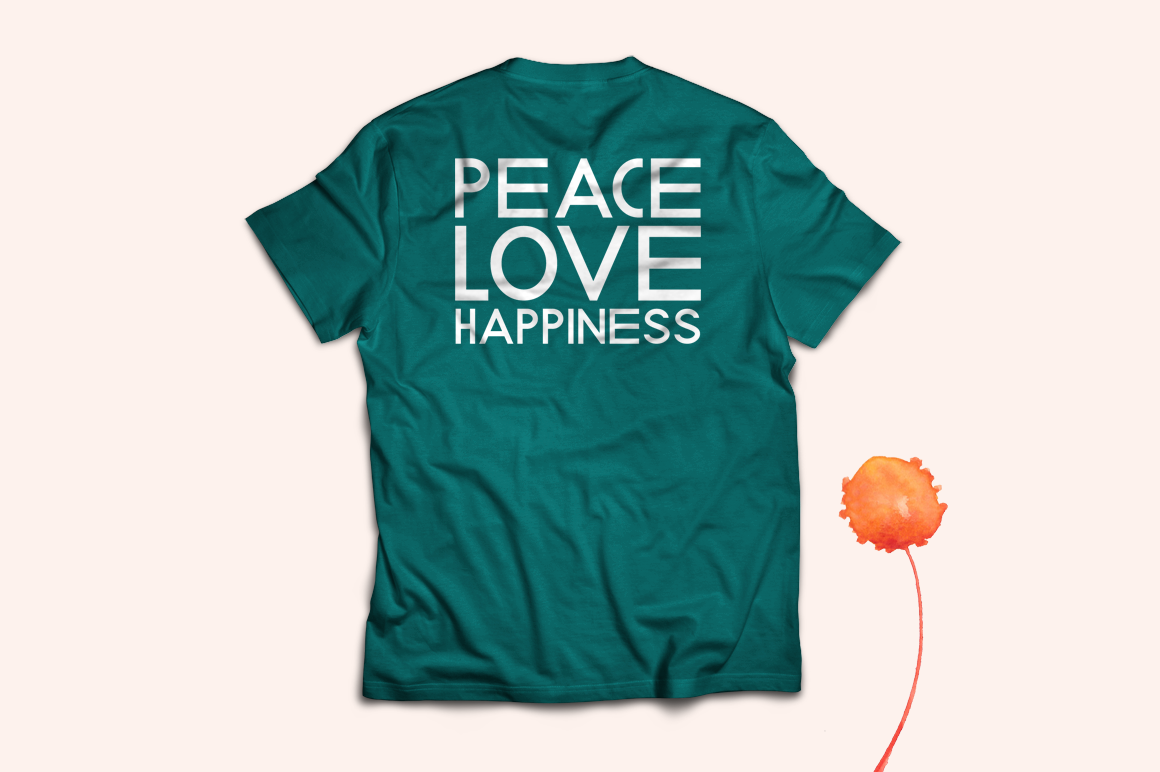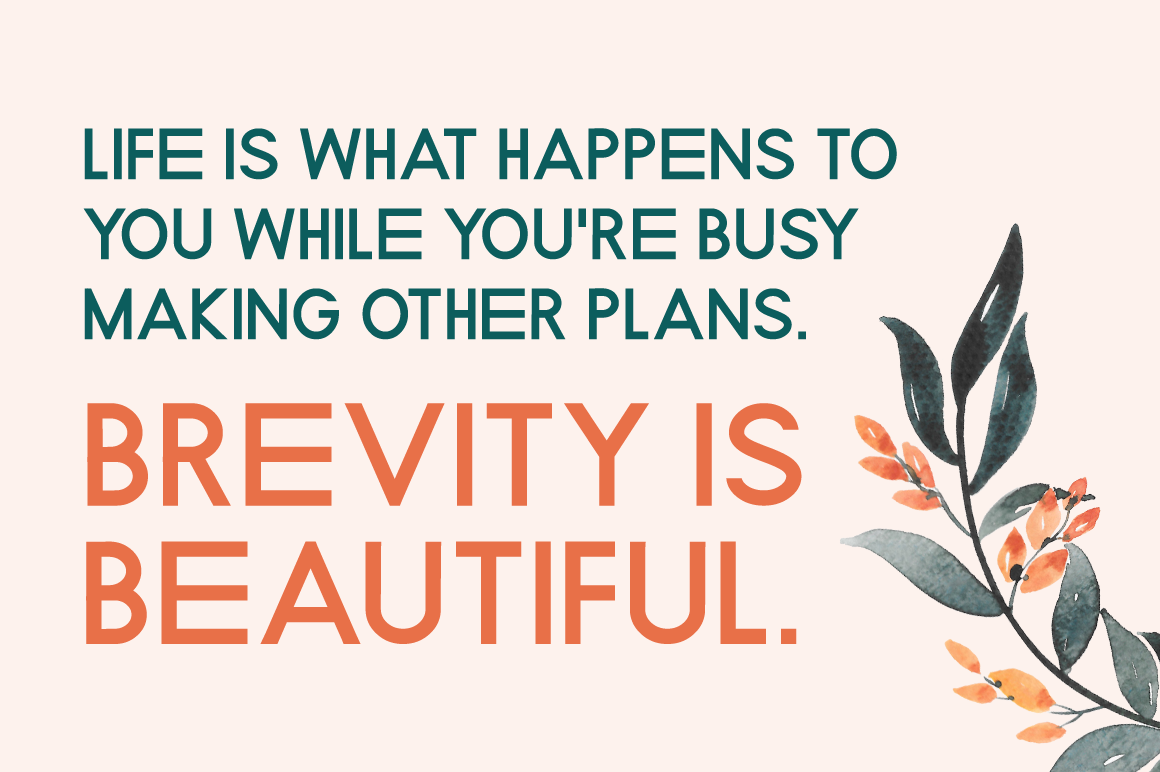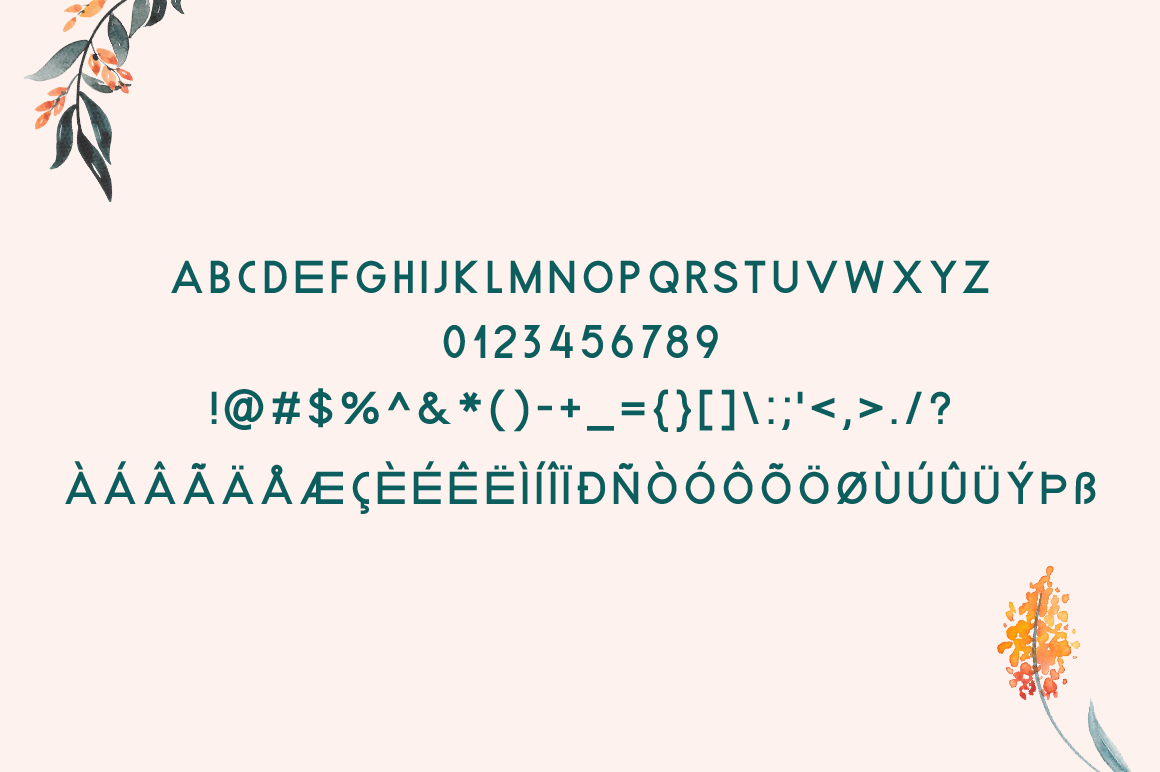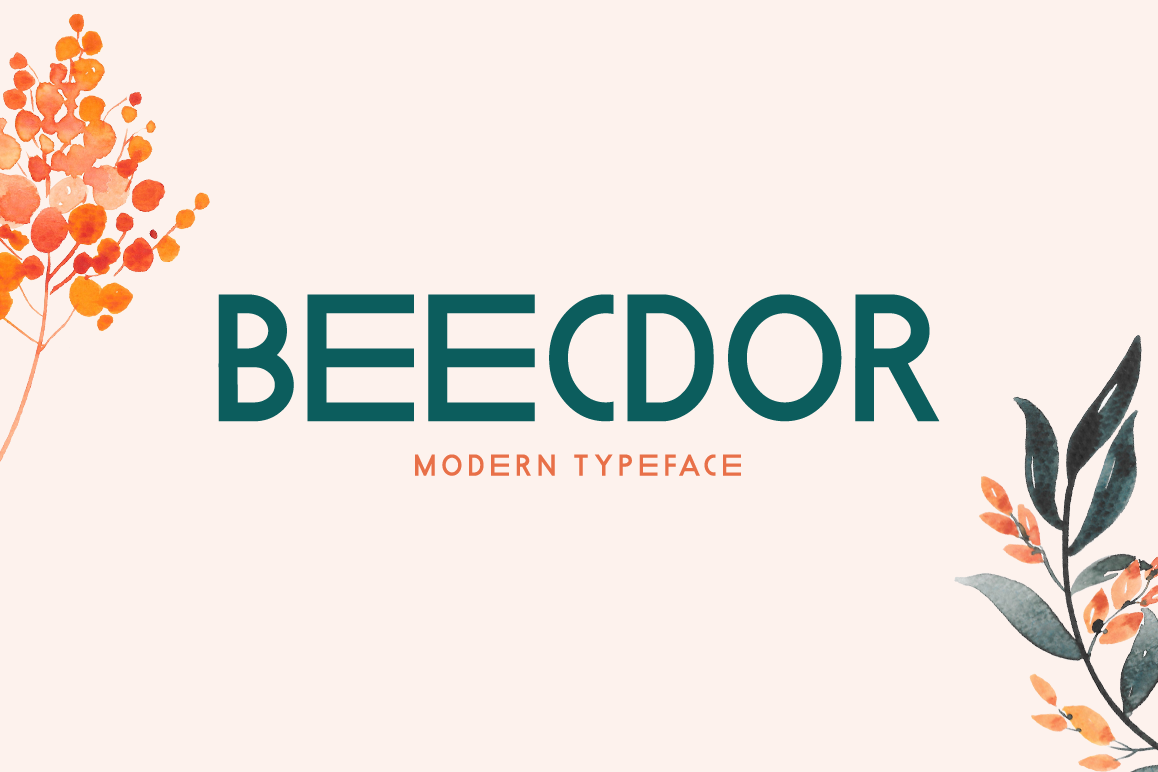
Beecdor Regular Font
ntroducing Beecdor!
Beecdor is a brand new modern display font. Beecdor is perfectly suited for stationery, logos, t-shirt, paper, print design, website header, photo frame, flyer, music cover, poster, image slider and much more.